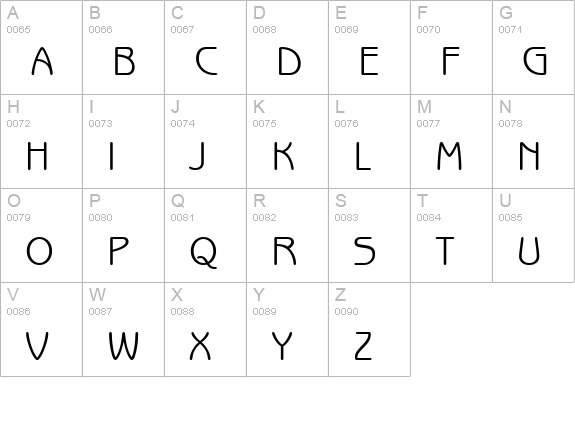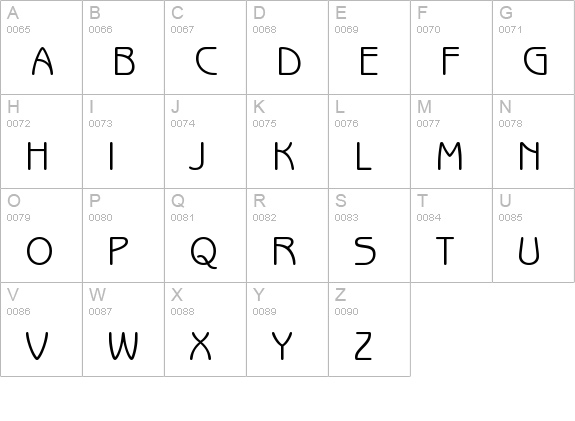
Express Deco GothicLight SSi Book is a comfortable, highly readable variant in the Express typeface family \xE2\x80\x94 well suited to long-form body text, articles, and editorial content.
Express Deco GothicLight SSi Book is a stunning font that combines elements of Art Deco and Gothic styles to create a unique and elegant typeface. Its sleek lines and intricate details make it perfect for projects that require a touch of sophistication and vintage charm. This font is versatile and can be used for a variety of design purposes, from invitations and posters to branding and packaging. Its clean and legible design makes it suitable for both display and body text. Best of all, Express Deco GothicLight SSi Book is freely available to download at FontsMarket.com, making it accessible to designers and creatives looking to add a touch of timeless elegance to their projects. Don't miss out on this free font and elevate your designs with Express Deco GothicLight SSi Book today.